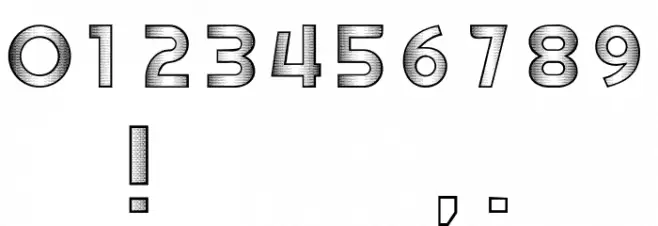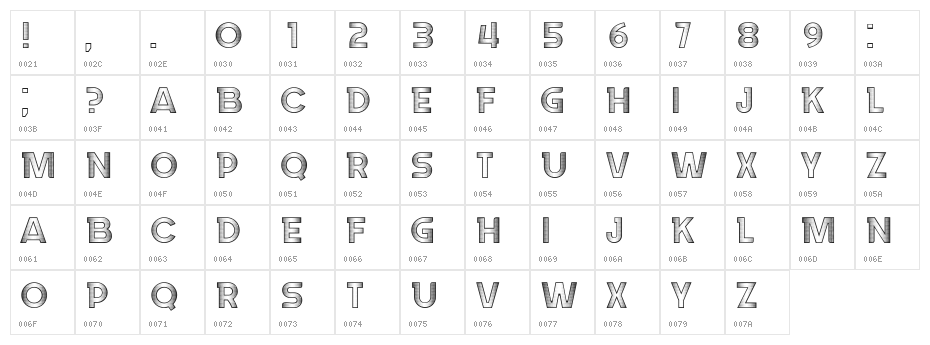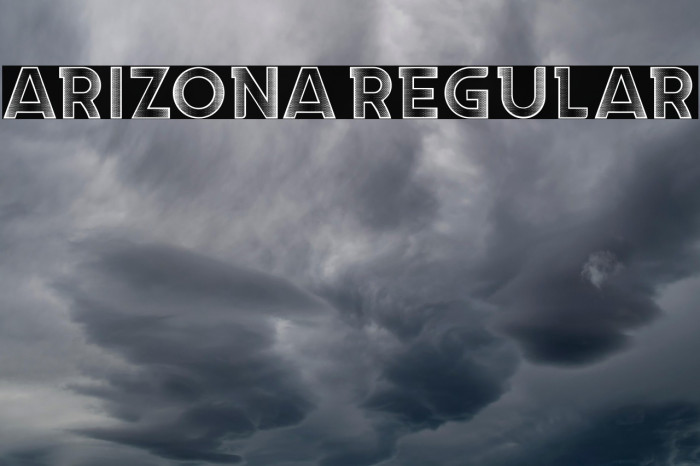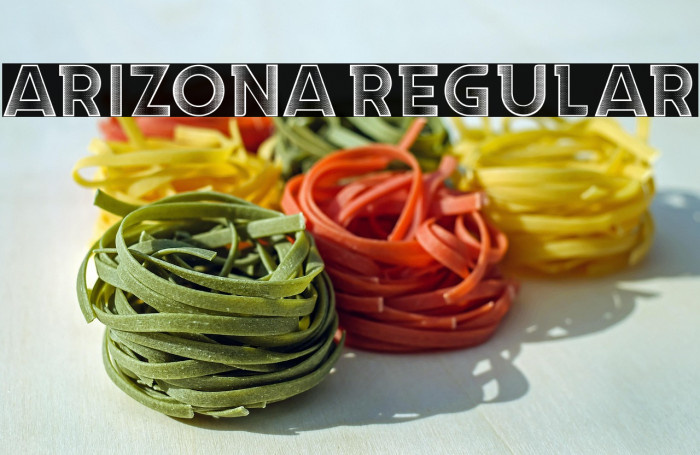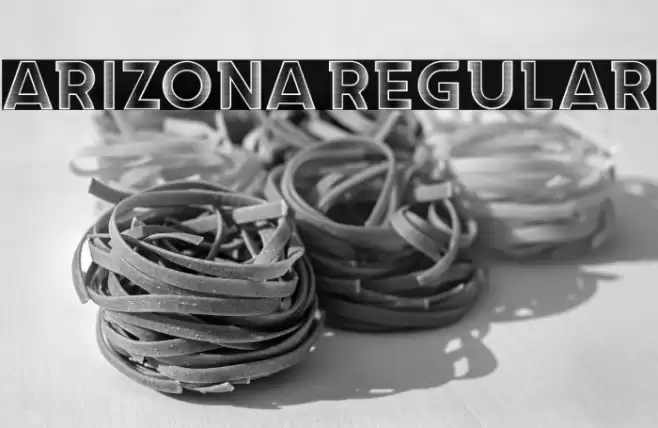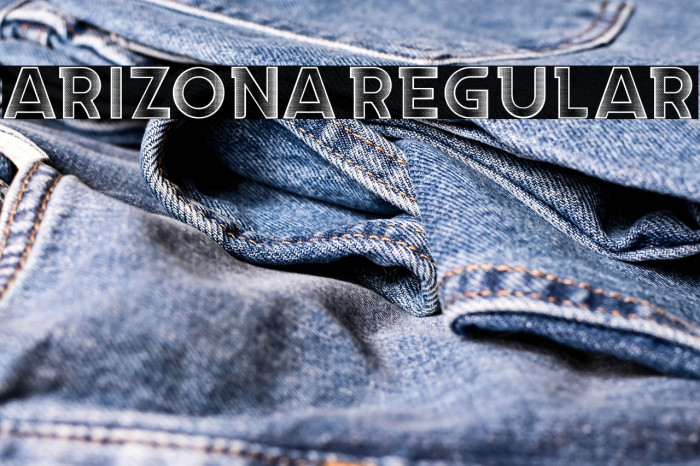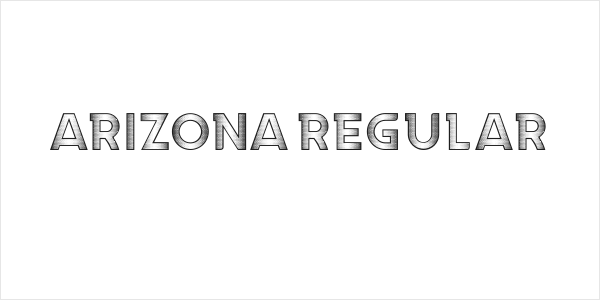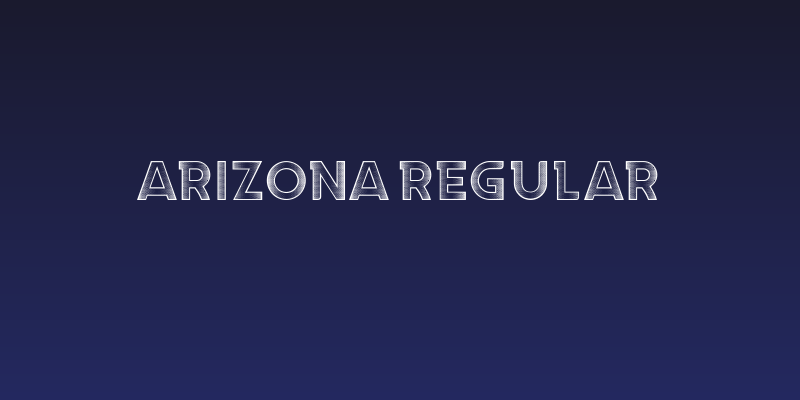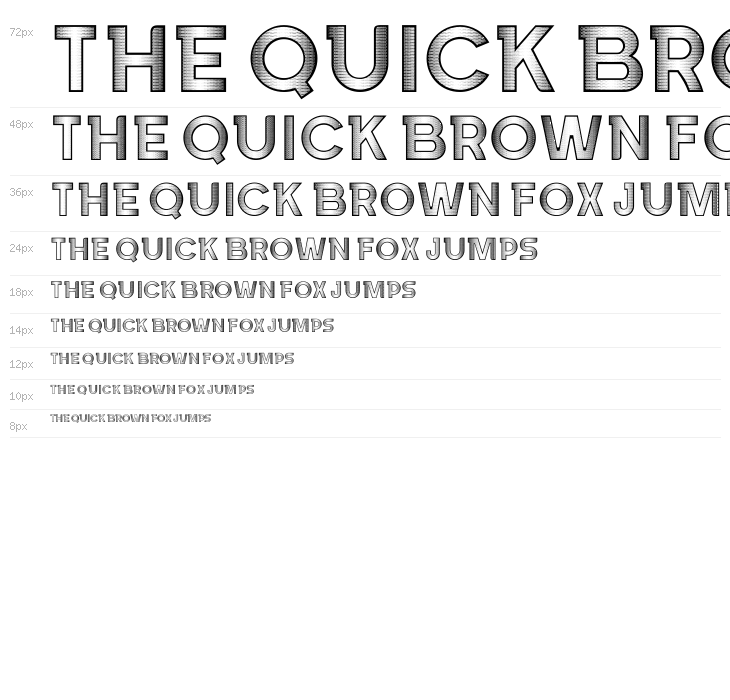
Arizona Regular Font
Arizona Regular Description
This font features a bold and striking design with a unique textured appearance. Each character is crafted with a series of horizontal lines that create a sense of depth and dimension. The uppercase letters are robust and commanding, while the lowercase letters maintain a consistent style that complements the overall aesthetic. The numerals are clear and easily readable, making them suitable for a variety of applications. The special characters are designed with the same attention to detail, ensuring a cohesive look across all elements. This font's distinctive style makes it ideal for projects that require a bold and memorable visual impact.